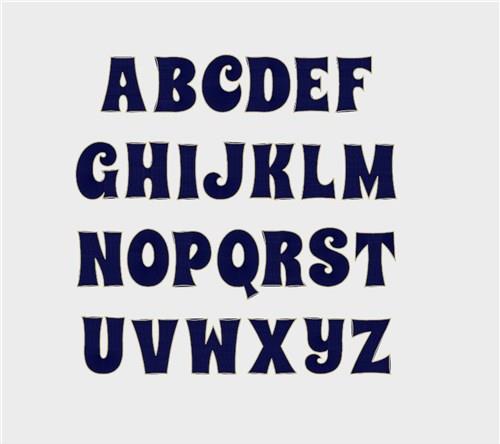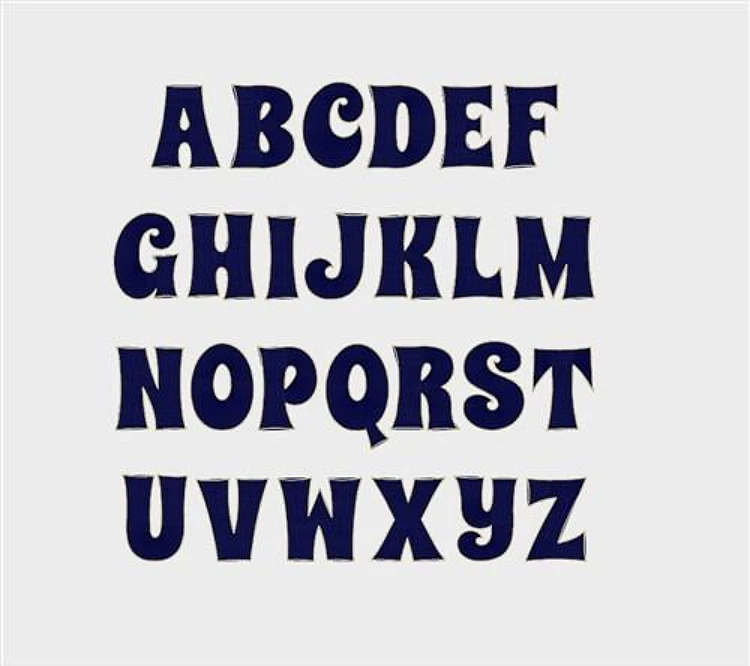
Artsy Knots is happy to present Curly block Embroidery Font - Playful Bold Curly Block Style - Home Format - PES, DST & 6 formats machine embroidery font which has Playful curly block embroidery font designed for large projects like cushions and banners. The bold letters are deep navy against a light background for high visibility. Available in PES, DST & 6 additional formats. included. If you would like to view more embroidery fonts and alphabets please search our embroidery fonts page.